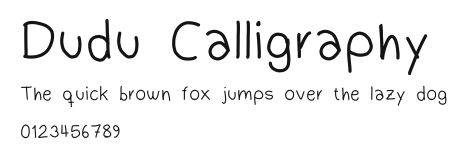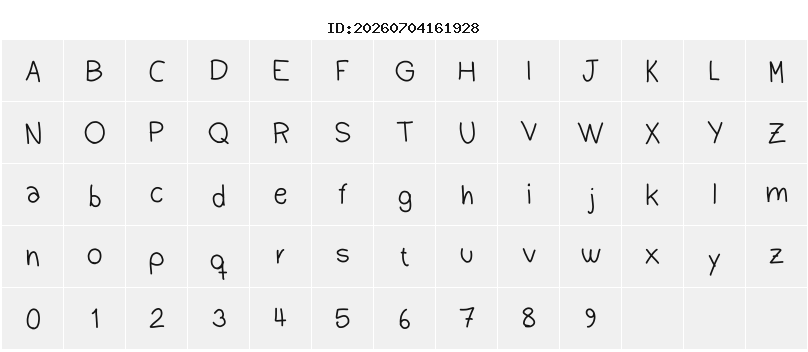
Dudu Calligraphy Preview
• Font Name: Dudu Calligraphy
About Dudu Calligraphy.ttf
Dudu Calligraphy.ttf is a modern, elegant sans-serif font designed for ultimate readability and visual harmony. Perfect for branding, headlines, web design, and print materials.